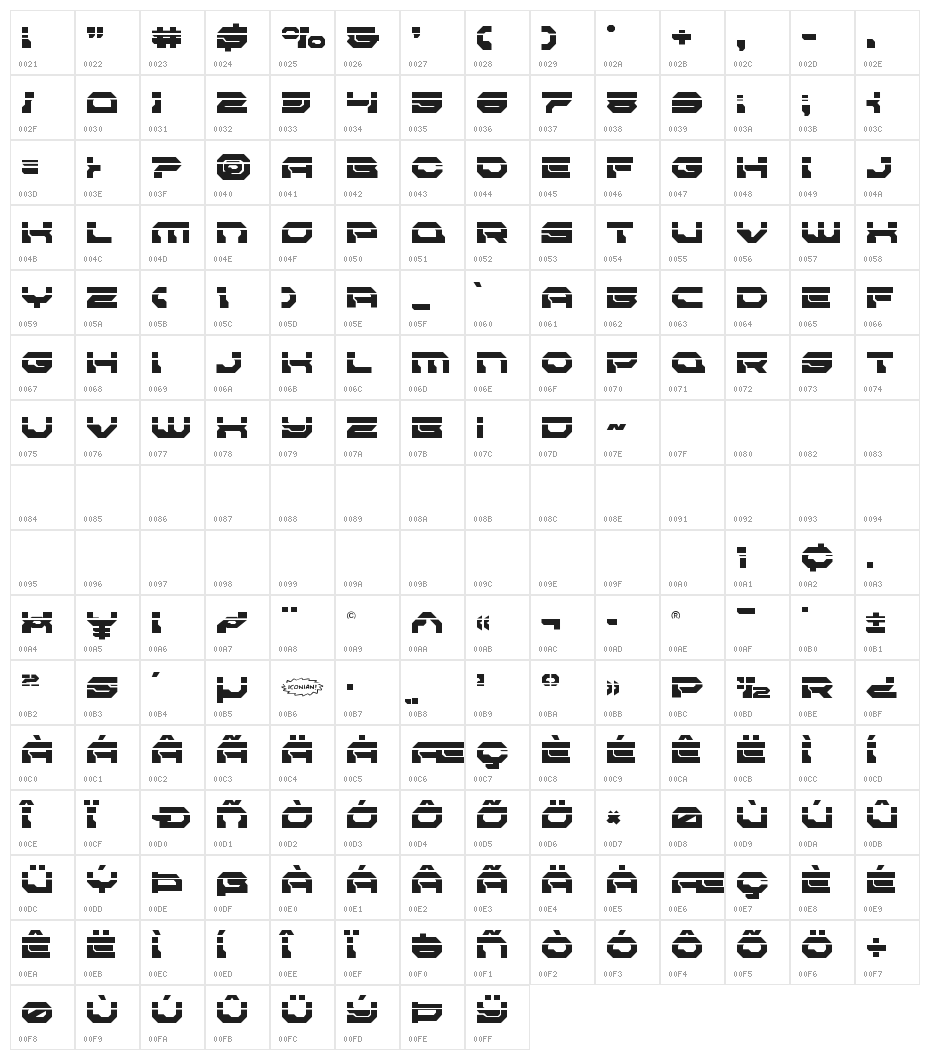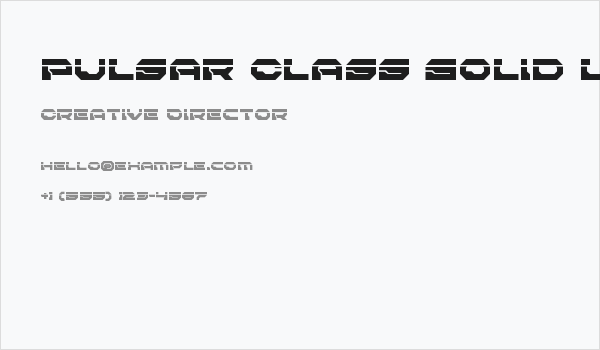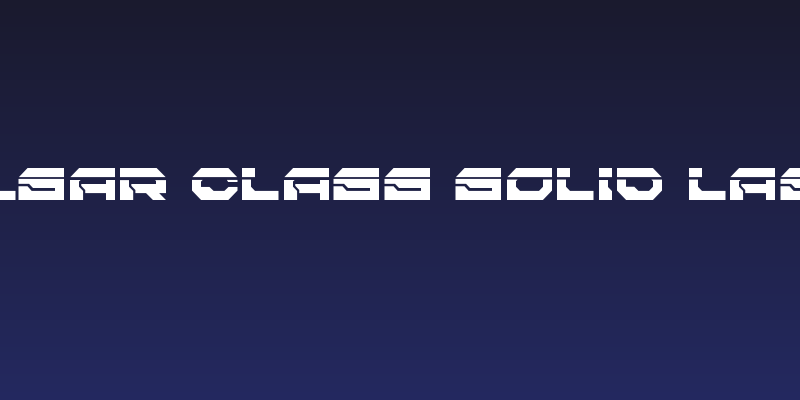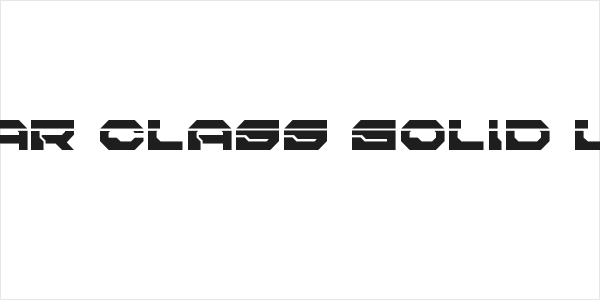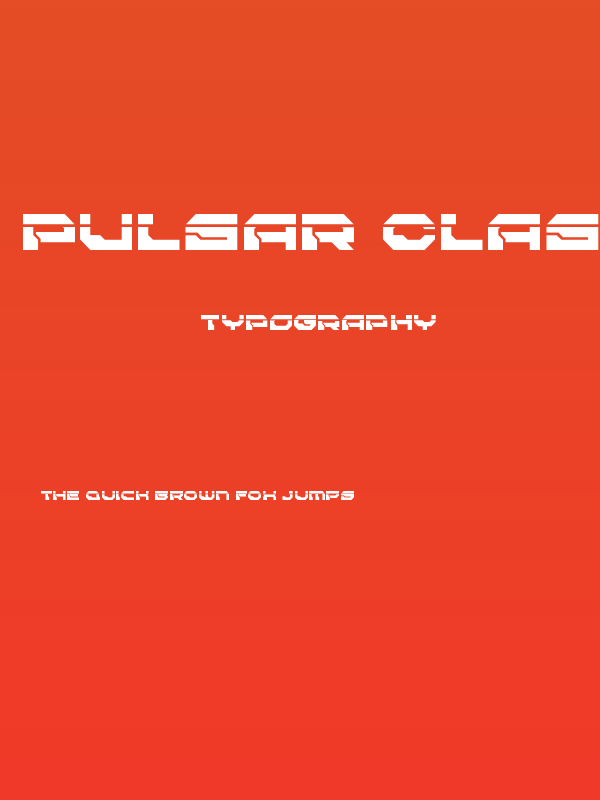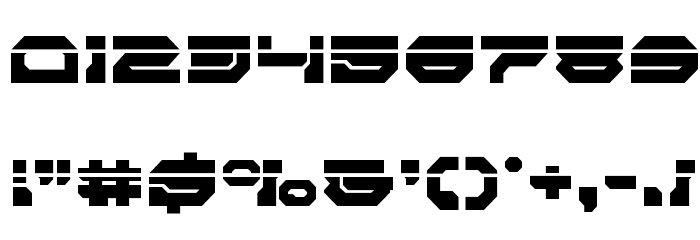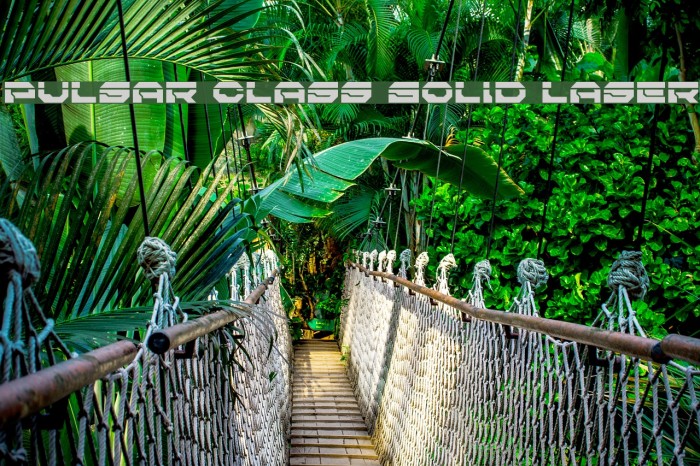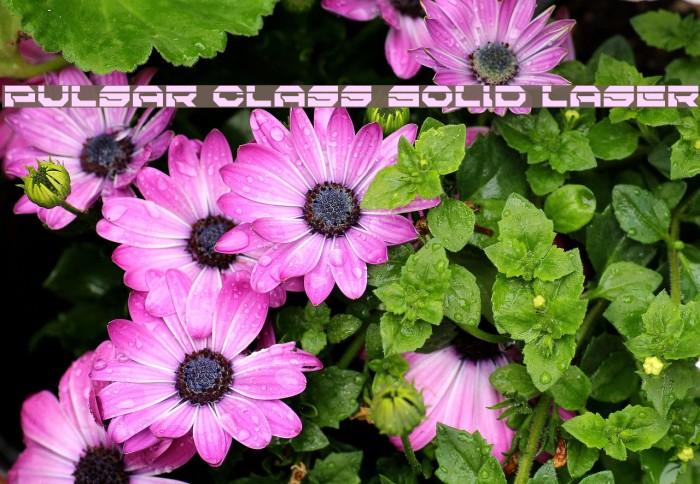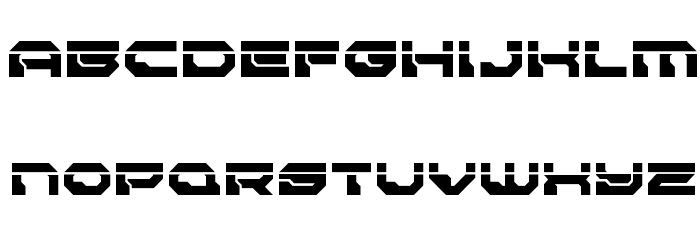
Pulsar Class Solid Laser Font
Pulsar Class Solid Laser Description
This font features a futuristic and geometric design, characterized by bold, angular shapes and a solid, block-like appearance. The characters are constructed with sharp edges and a consistent thickness, giving it a strong and impactful presence. The uppercase and lowercase letters maintain a uniform style, with minimal curves and a focus on straight lines and angles. Numbers and special characters follow the same design principles, ensuring a cohesive look across all elements. This font is ideal for projects that require a modern and tech-inspired aesthetic.
| Proposed Projects | Ideal for sci-fi themed designs, technology branding, video game titles, and futuristic posters. |